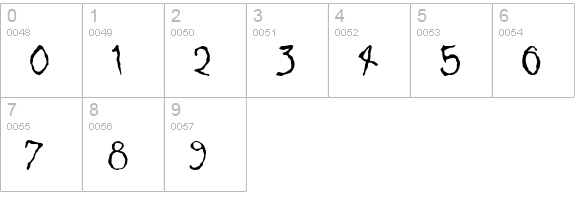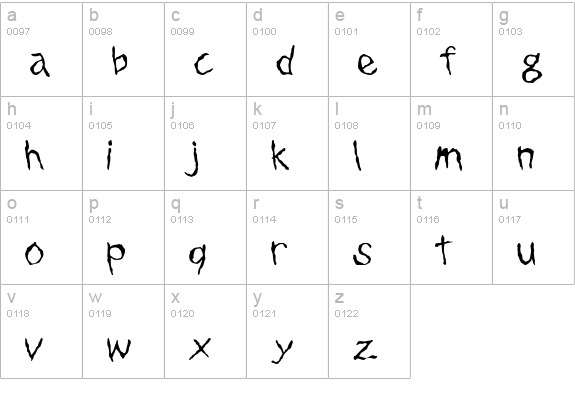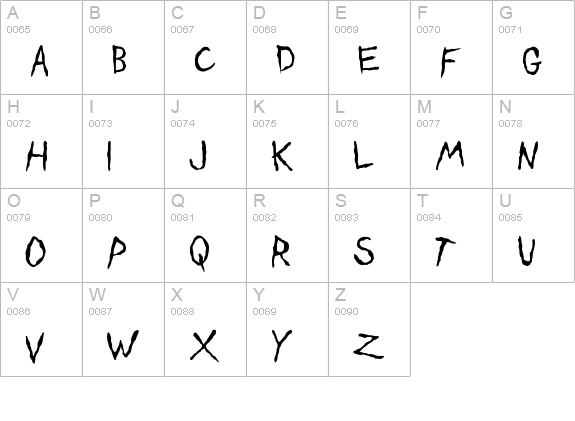
Introducing the striking and bold Dinosaur Jr Plane font, a versatile typeface that exudes vintage charm and rugged appeal. With its rugged edges and bold letterforms, this font is perfect for making a statement in your designs. Whether you're working on a poster, logo, or branding project, Dinosaur Jr Plane is sure to stand out and grab attention. Best of all, Dinosaur Jr Plane is available for free download at FontsMarket.com. This means you can add this unique font to your collection without any cost, making it a valuable addition to your design toolkit. Don't miss out on the opportunity to elevate your designs with the distinctive style of Dinosaur Jr Plane font. Download it today and start creating bold and impactful designs that truly stand out.